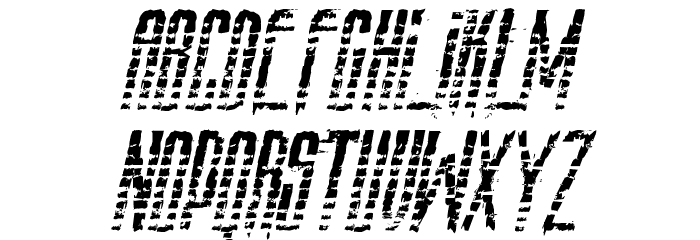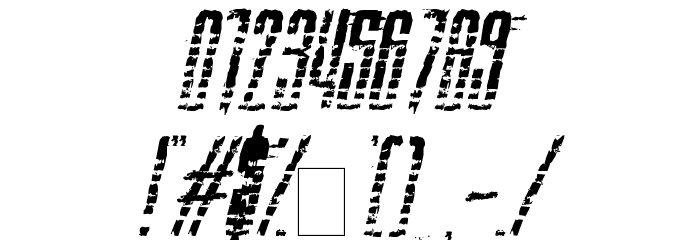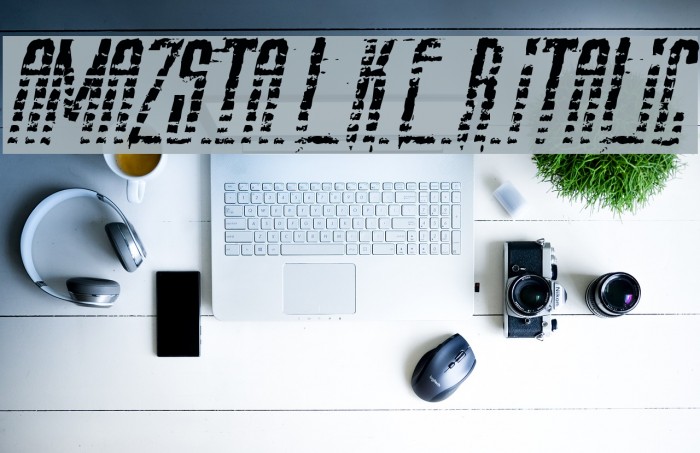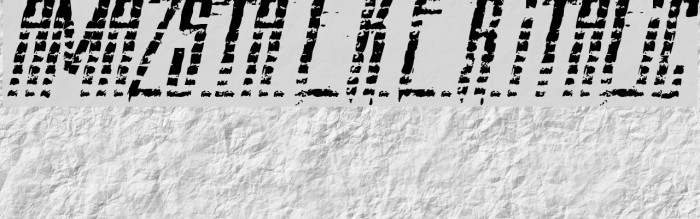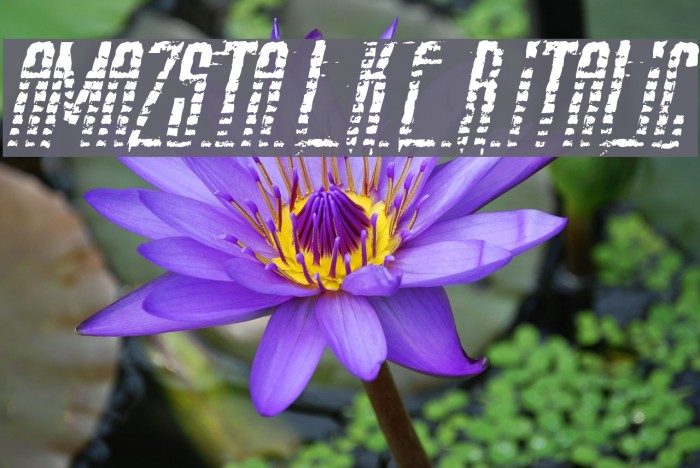
AmazS.T.A.L.K.E.R.Italic Font
This font features a bold, italicized style with a distressed, textured appearance. The characters are slanted, giving a sense of motion and urgency. The uppercase and lowercase letters maintain a consistent height, contributing to a uniform look. The numbers and special characters share the same rugged texture, making them stand out. The font's edgy and dynamic style is suitable for projects that require a strong visual impact.
Bold, italicized font with a distressed, textured look.
- Proposed Projects: Ideal for posters, album covers, video game titles, and branding that requires a gritty, impactful aesthetic.
- Overall Style: Modern, Decorative